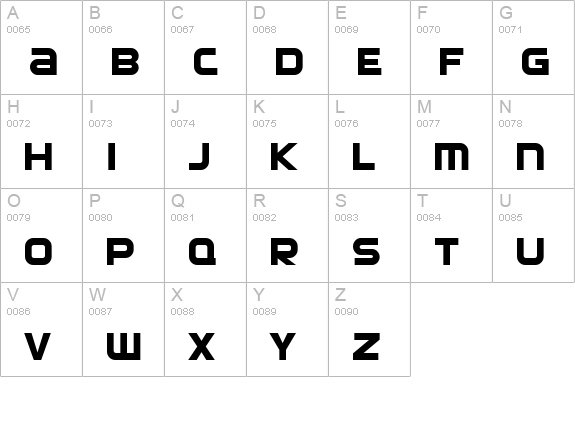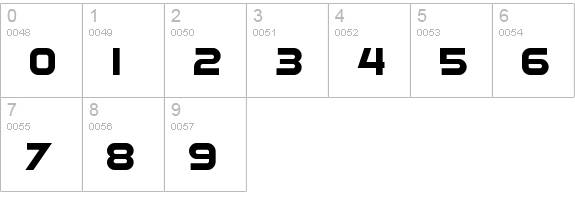
SF Automaton Font Details
Introducing SF Automaton, a futuristic font designed to bring a touch of technological sophistication to your projects. This stunning typeface captures the essence of sleek, futuristic design with its clean lines, sharp angles, and geometric forms. SF Automaton is the perfect choice for any project that requires a modern, cutting-edge aesthetic. Whether you're creating a high-tech website, designing a sleek logo, or crafting a visually striking poster, this font will effortlessly elevate your work to new heights. With its wide range of weights and styles, SF Automaton offers versatility and adaptability, allowing you to create captivating designs that stand out from the crowd. From bold and impactful headlines to elegant and refined body text, this font has you covered. And the best part? SF Automaton is available for free download exclusively at FontsMarket.com. That's right, you can access this remarkable font at no cost, making it a valuable addition to your font library. So, why wait? Unlock the power of SF Automaton and take your design projects to the next level. Download this exceptional font today and let your creativity soar.